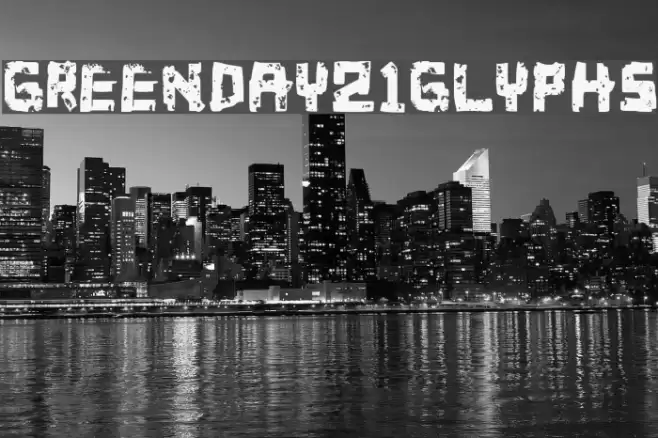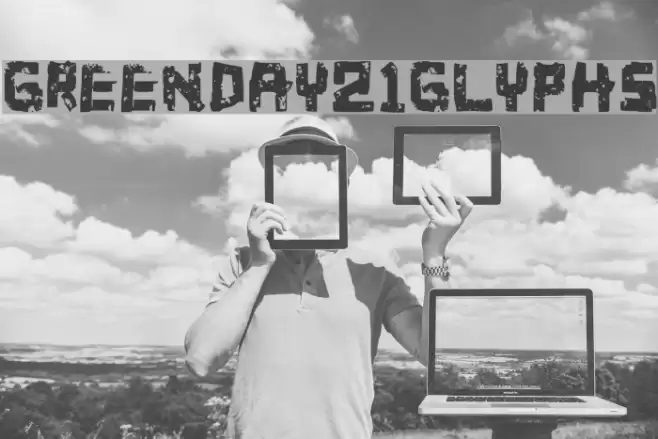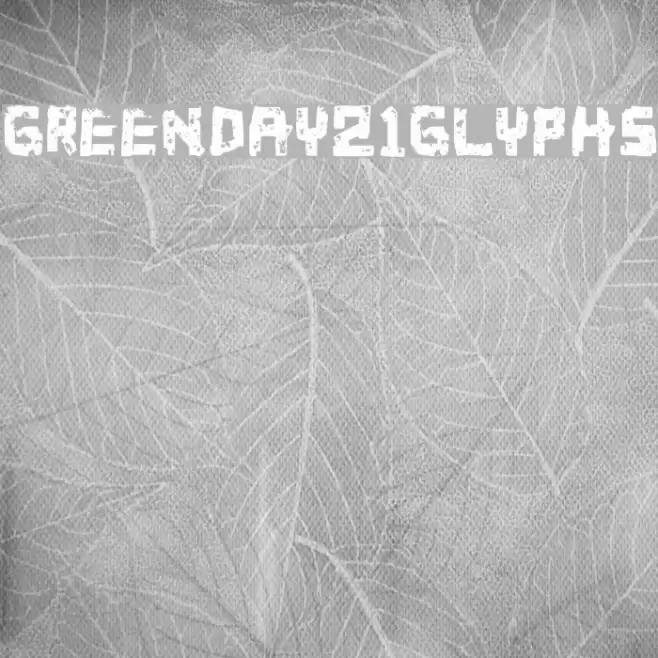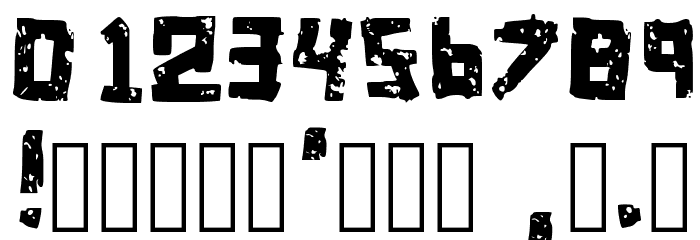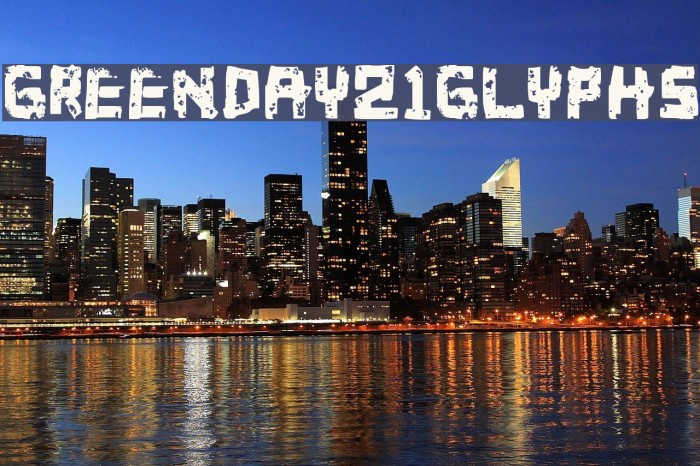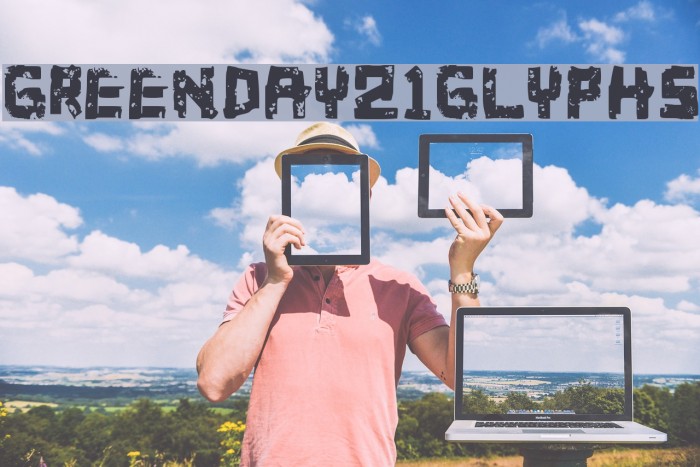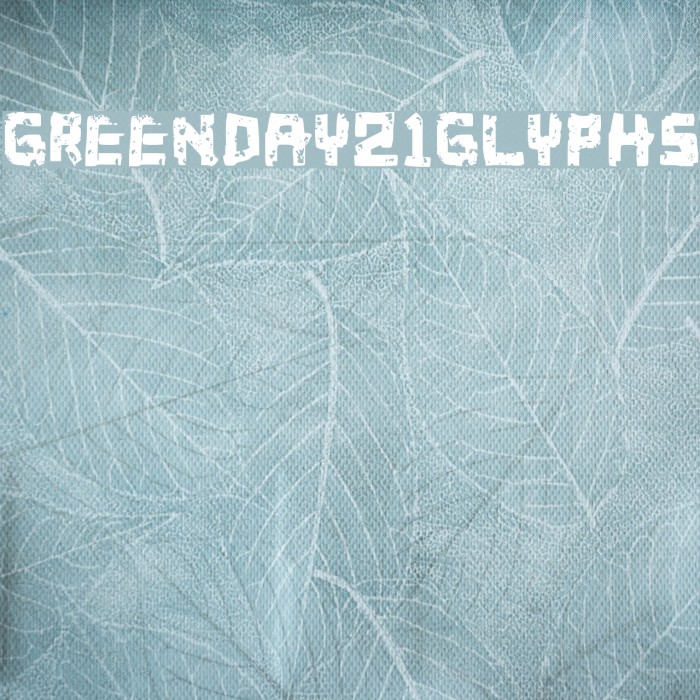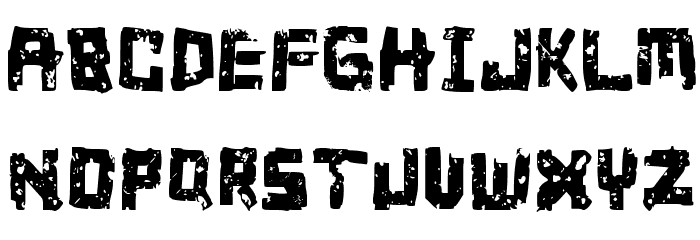
Green_Day_21_Glyphs Font
Green_Day_21_Glyphs Description
This font features a distressed, grunge style with a bold and rugged appearance. The characters are heavily textured, giving them a worn and weathered look, reminiscent of urban street art or punk rock aesthetics. Each letter and number is uniquely designed with irregular edges and a rough finish, creating a sense of movement and energy. The font maintains a consistent height across characters, ensuring readability while still embracing its chaotic style. The special characters follow the same design principles, adding to the overall cohesive look.
A bold, distressed font with a grunge, urban aesthetic from Fancy fonts.
- Proposed Projects: Ideal for music album covers, posters, and edgy branding projects.
- Overall Style: Grunge, Urban, Punk